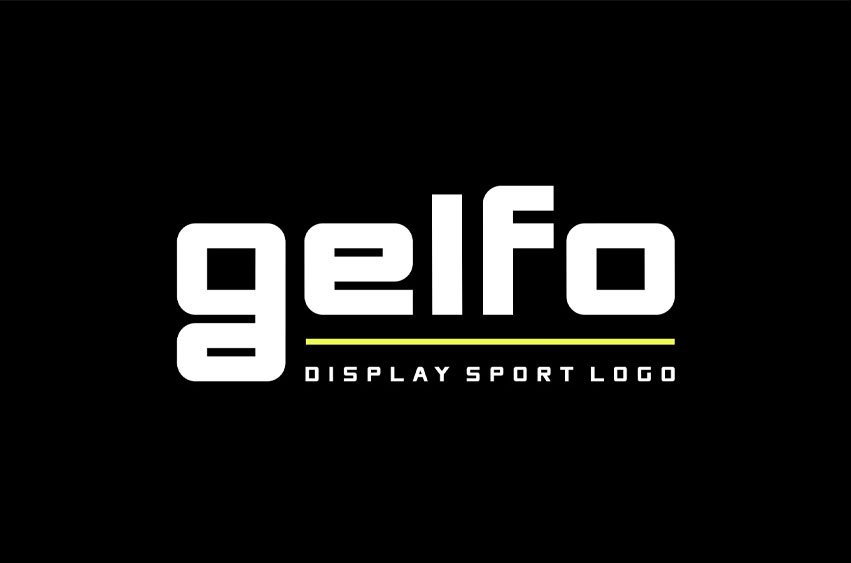
Gelfo Font
Gelfo Font Display Style is a bold and authentic display font. The font is suitable for any branding project like logo, esport, and many more.
outstanding in a wide range of contexts.